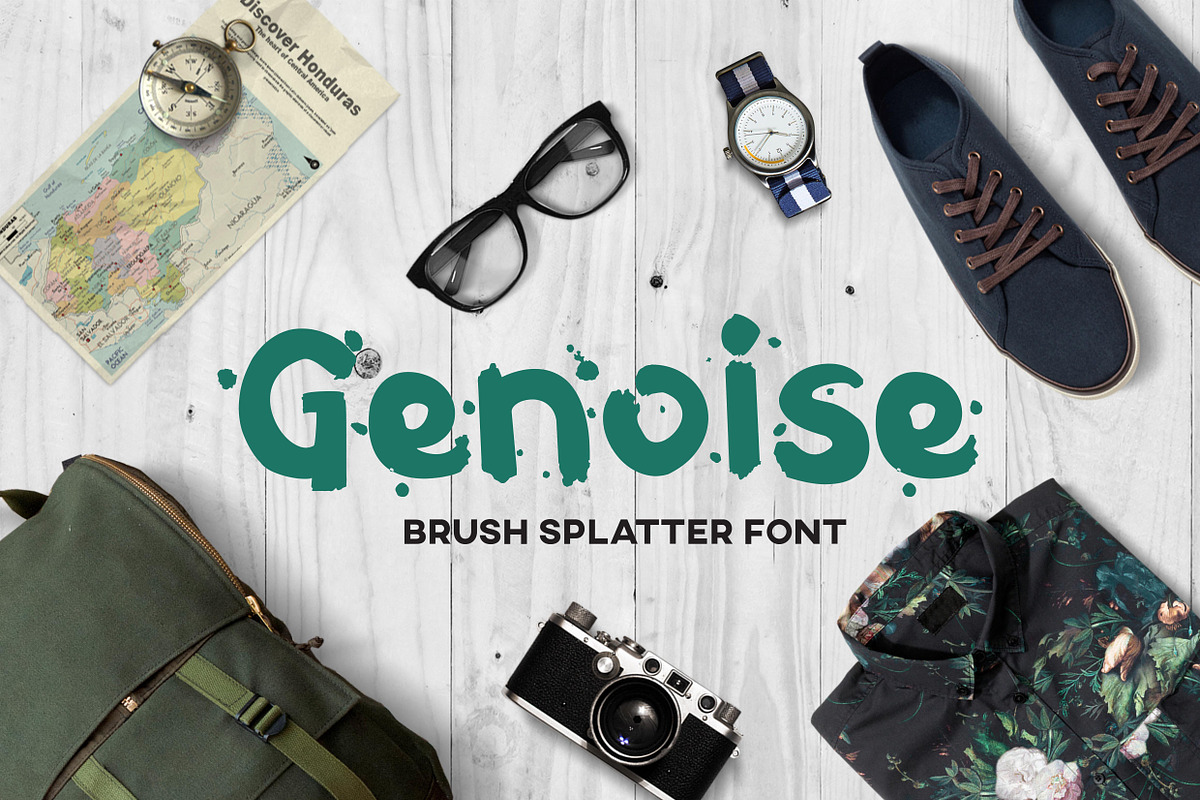
Genoise Font
Genoise Font by MilenaG is a font selected for branding, posters, packaging, typography.
Why Genoise Font is worth a look
Genoise Font by MilenaG fits naturally into Branding, posters, packaging, typography.